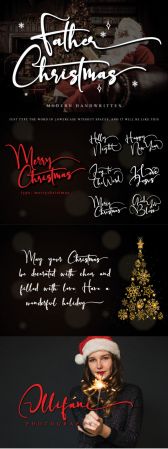
Father Christmas is a charming and elegant handwritten font. It looks stunning on wedding invitations, thank you cards, quotes, greeting cards, logos, business cards and every other design which needs a handwritten touch.
This font is PUA encoded which means you can access all of the glyphs and swashes with ease! It features a varying baseline, smooth lines, gorgeous glyphs and stunning alternates.